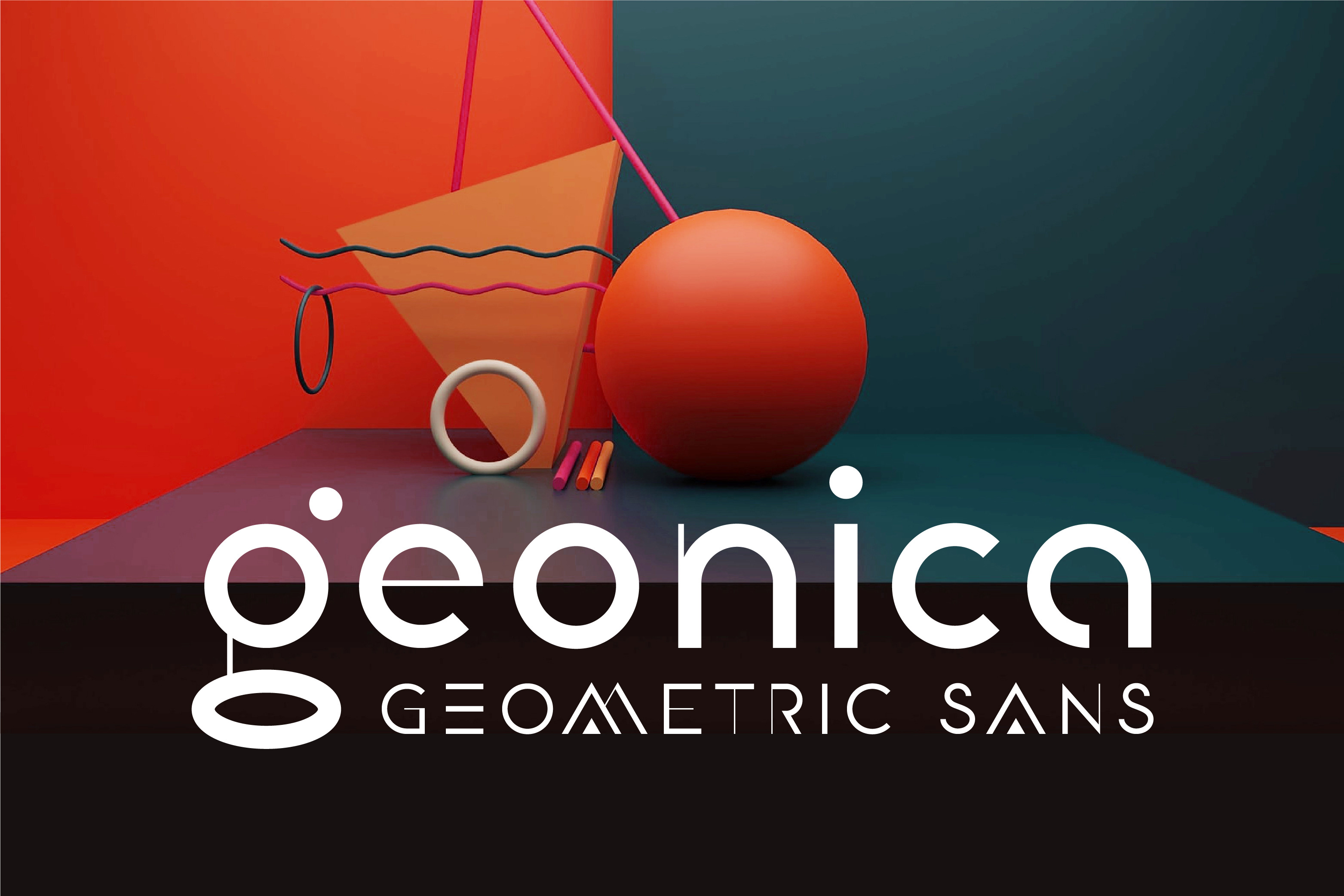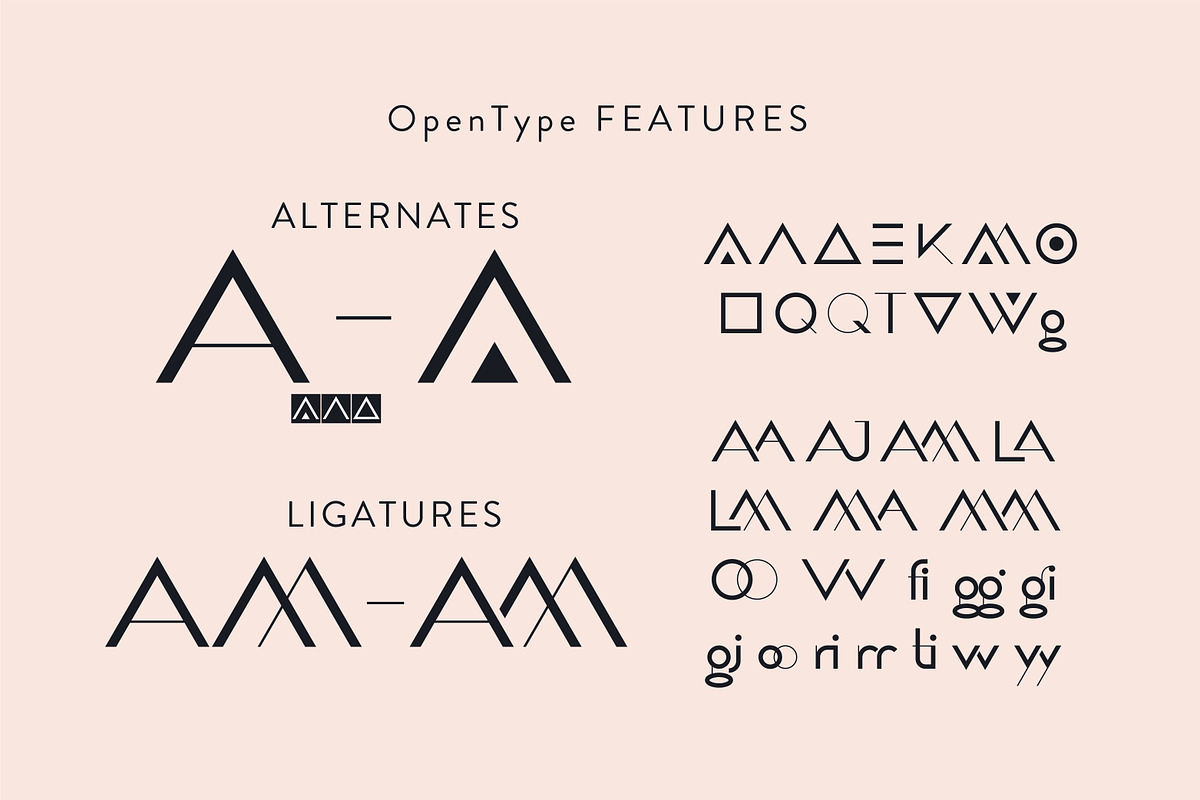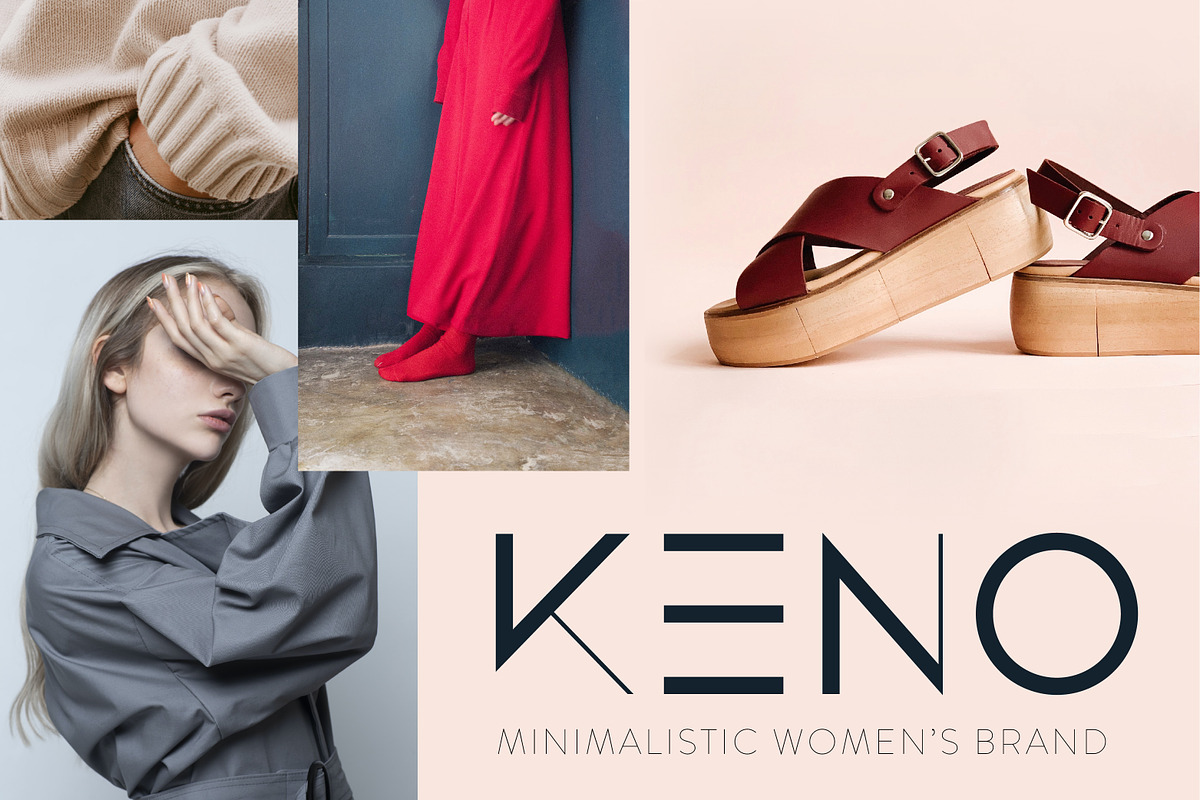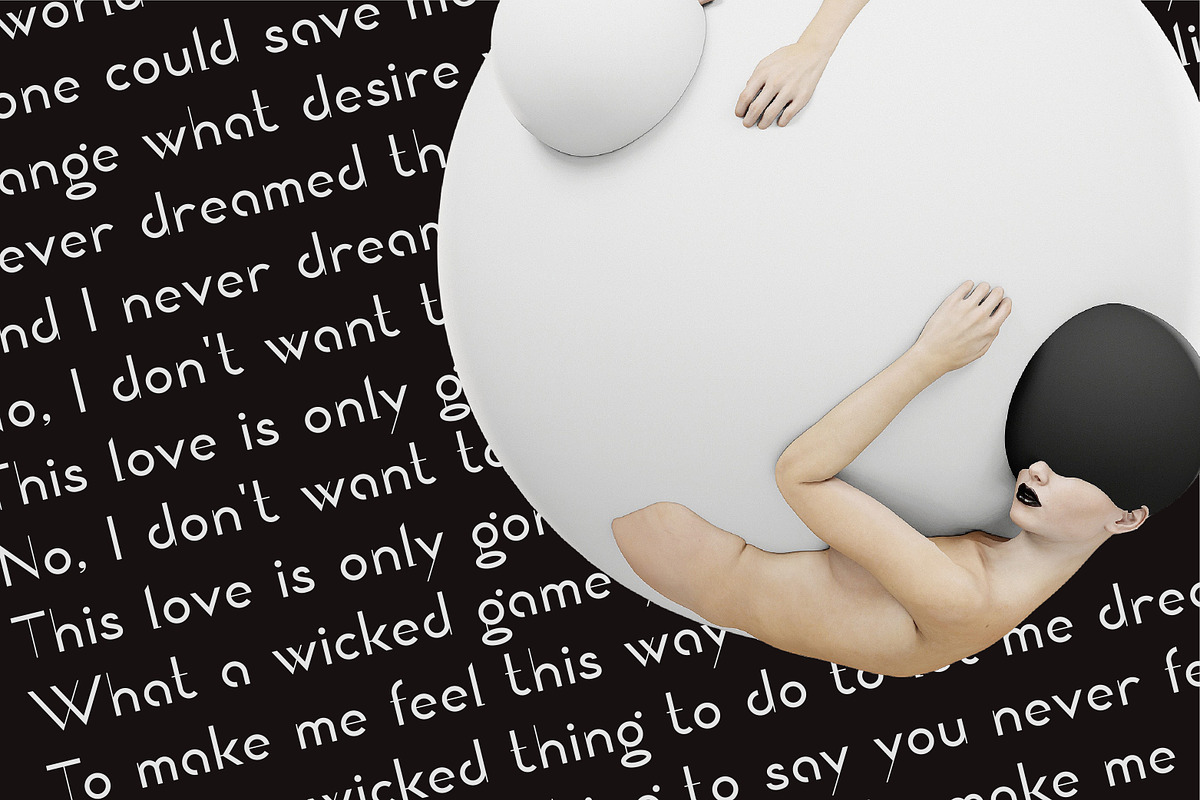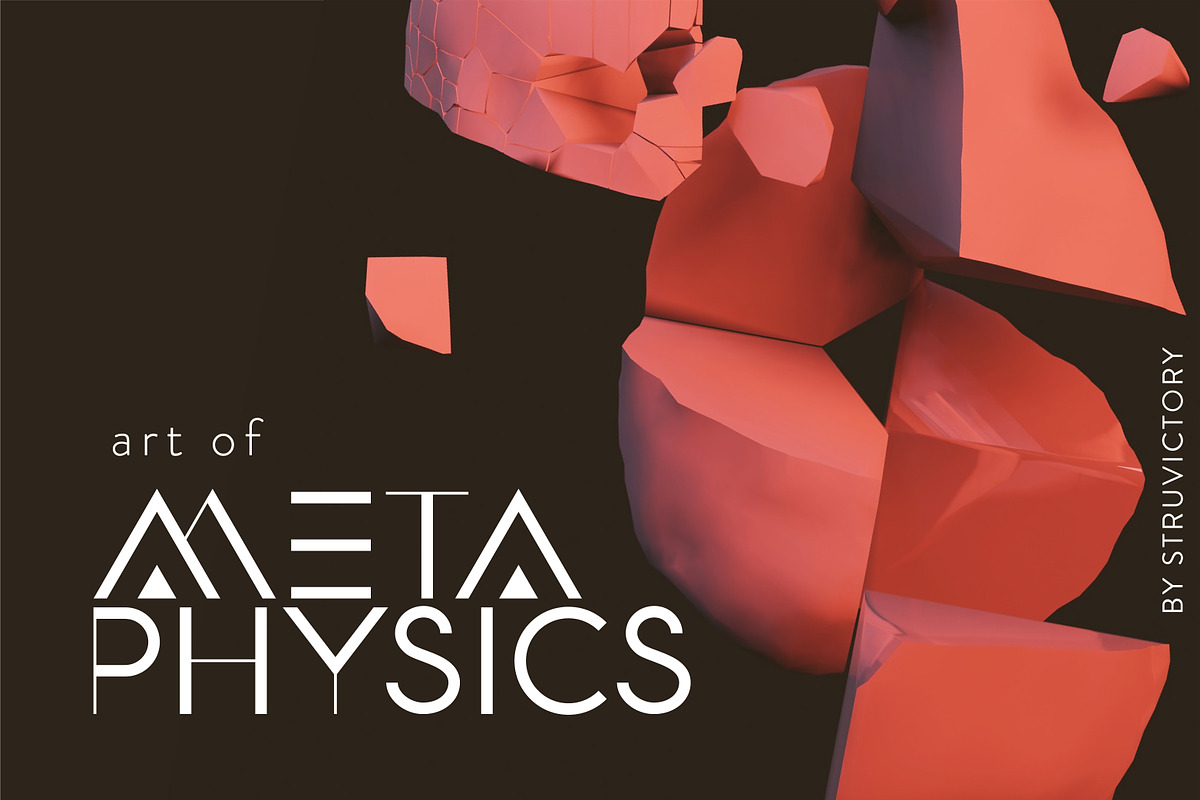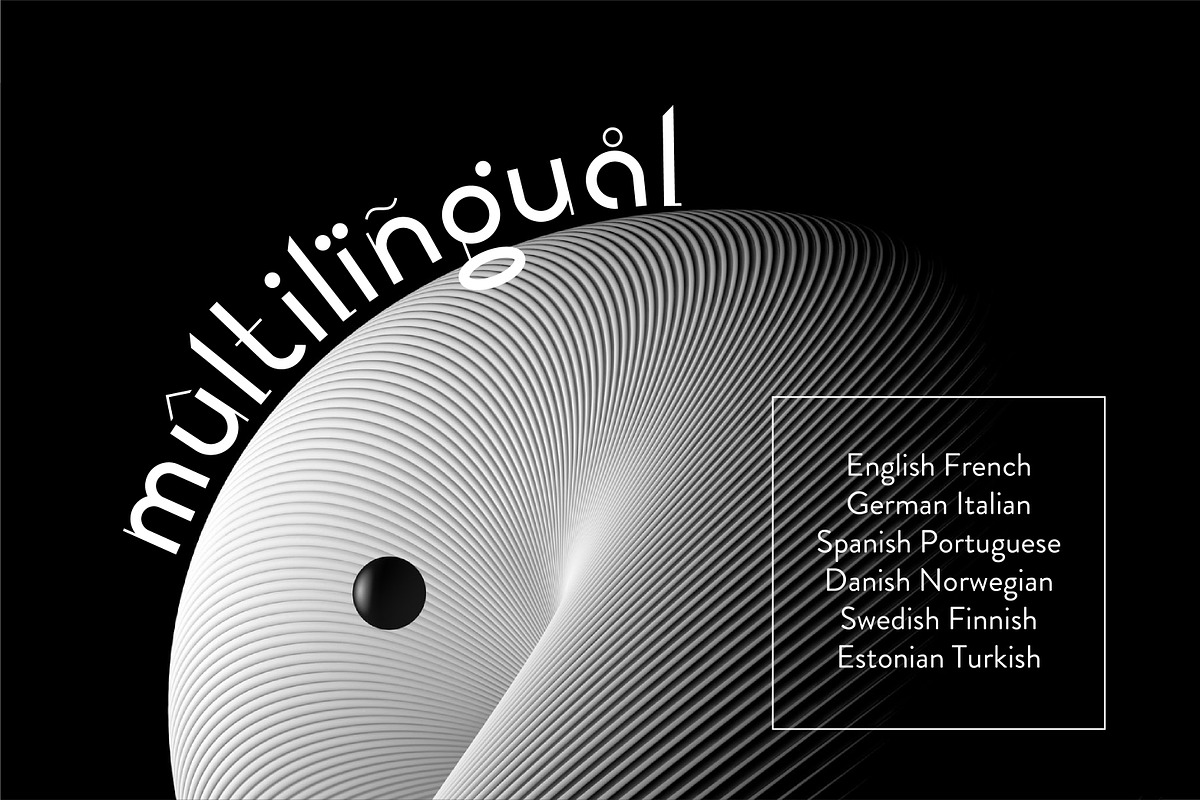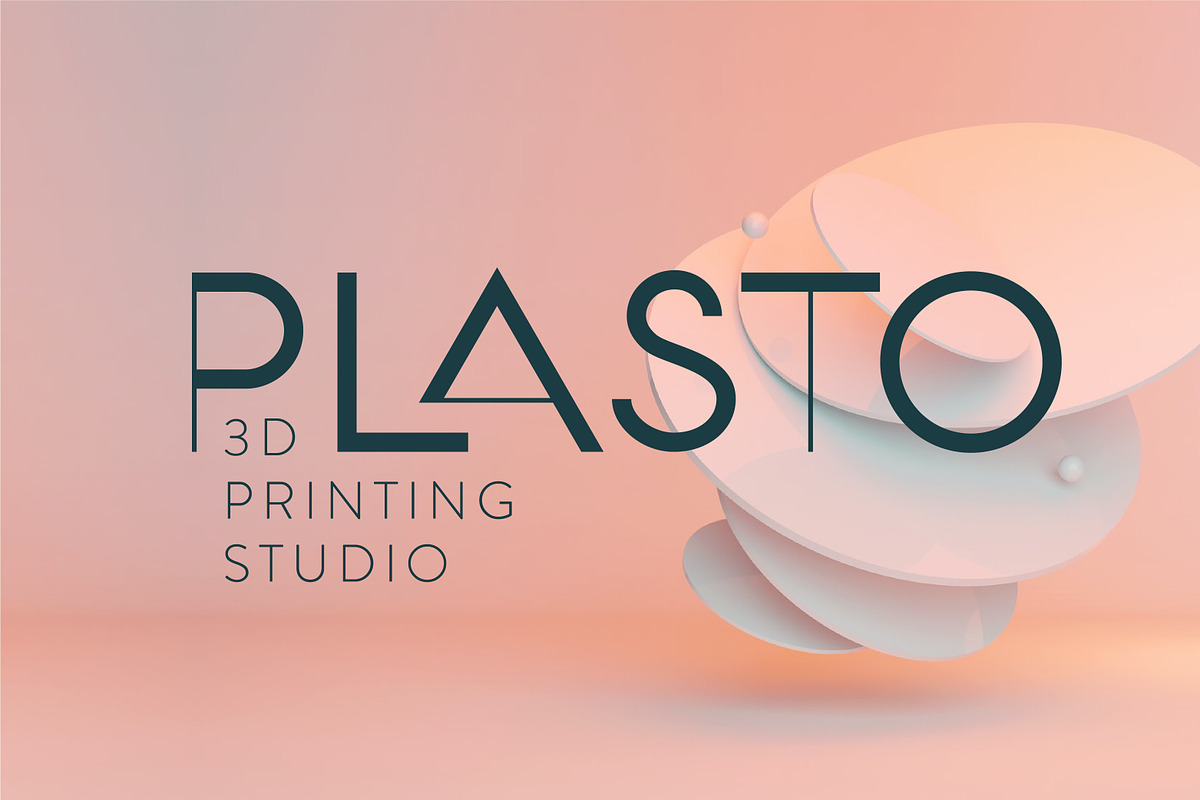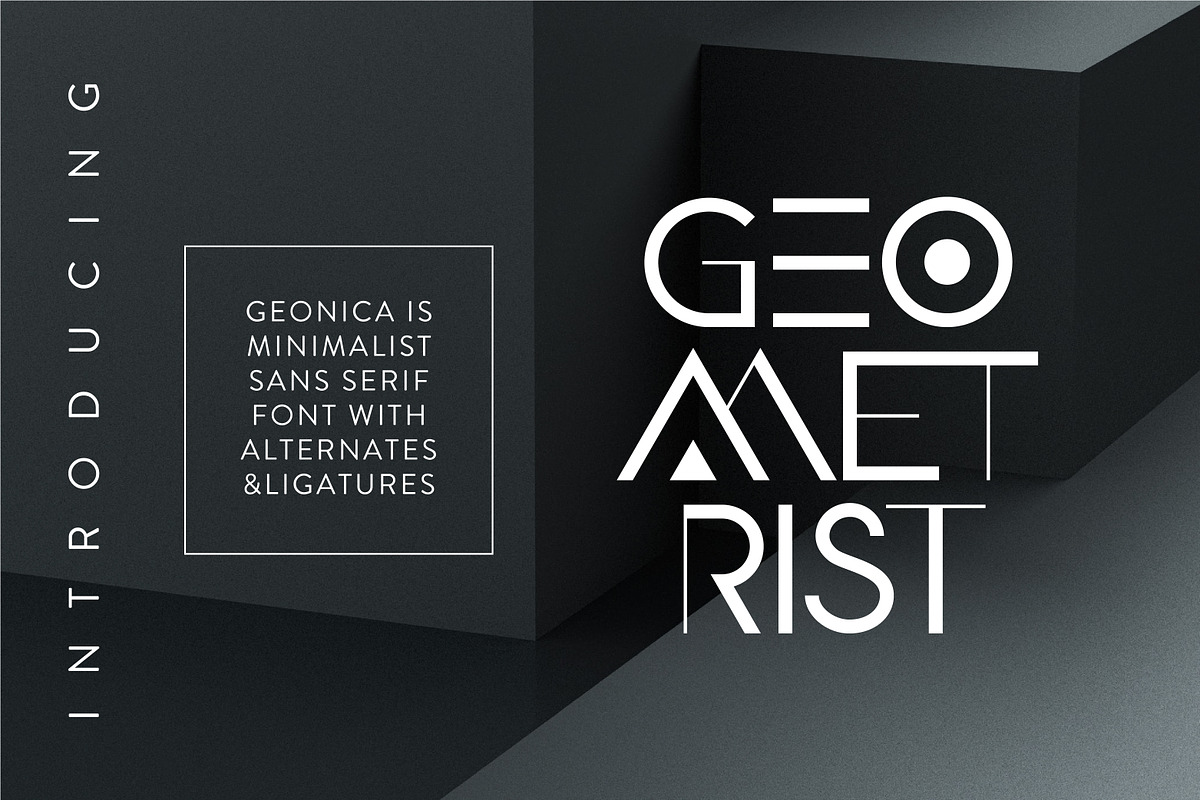
Geonica - Geometric Sans Serif Font
Geonica is minimalistic geometric sans serif font. The font includes stylistic alternates and ligatures. Geonica is suitable for the design on the theme of architecture, game industry, minimalism ect.
Geonica has extensive language support, it includes English, French, German, Italian, Spanish, Portuguese, Danish, Norwegian, Swedish, Finnish, Estonian, Turkish. Need to know if your language is supported? Type any words in the text box below and see if all characters you need are there.
Geonica includes stylistic alternates for symbols: A, E, K, M, O, Q, T, V, W, g. There are also ligatures: AA, AJ, AM, LA, LM, MA, MM, OO, VV, fi, gg, gi, gj, oo, ri, rr, ti, vv, yy.